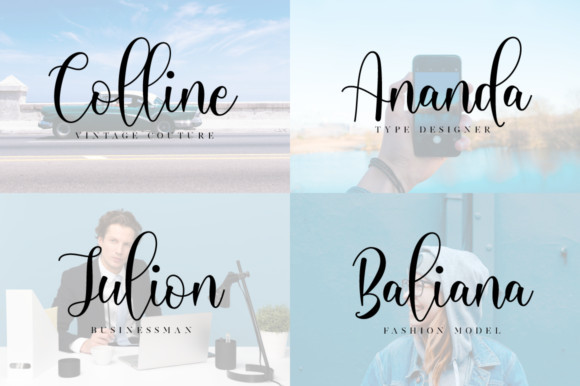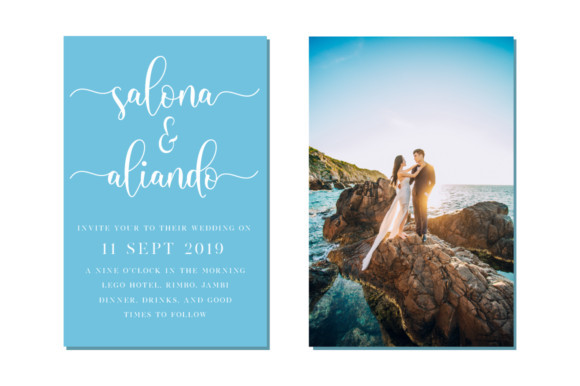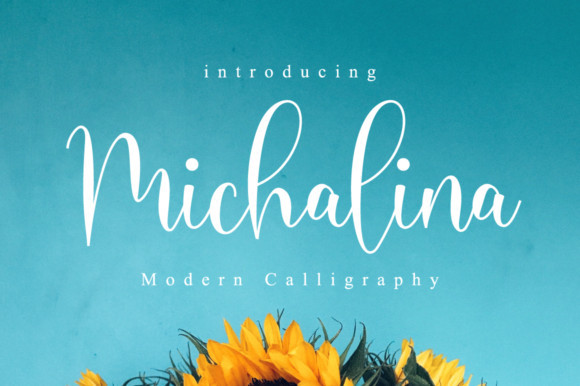
Michalina Script Font
Michalina Script is a fun and cool script with a relaxed summer vibe. Get inspired by its unique charm, and turn any design project into a true standout!